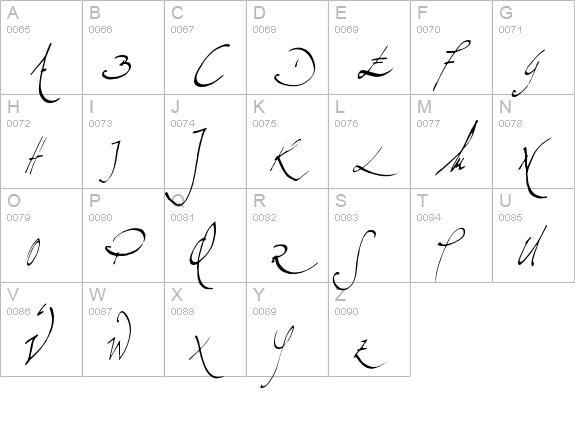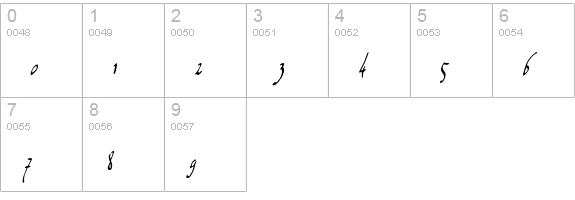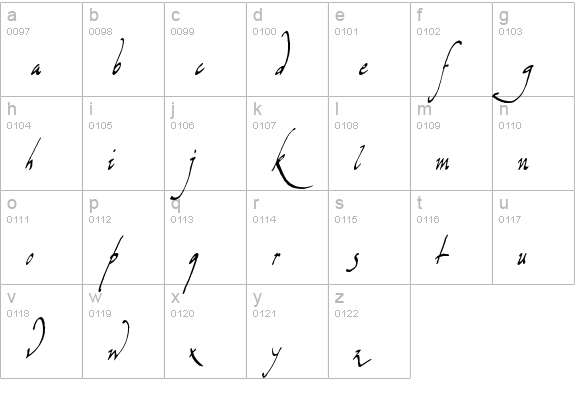
Missiva Font Details
Missiva font is a beautiful and elegant typeface that exudes sophistication and charm. With its graceful curves and stylish serifs, Missiva is perfect for adding a touch of class to any design project. Whether you're creating invitations, posters, or branding materials, this versatile font will make your text stand out with its timeless appeal. What makes Missiva font even more appealing is that it is available for free download at FontsMarket.com. This means that you can easily access this stunning font and use it in your projects without any cost. Don't miss out on the opportunity to enhance your designs with the beauty of Missiva font - download it today and elevate your typography game to the next level.